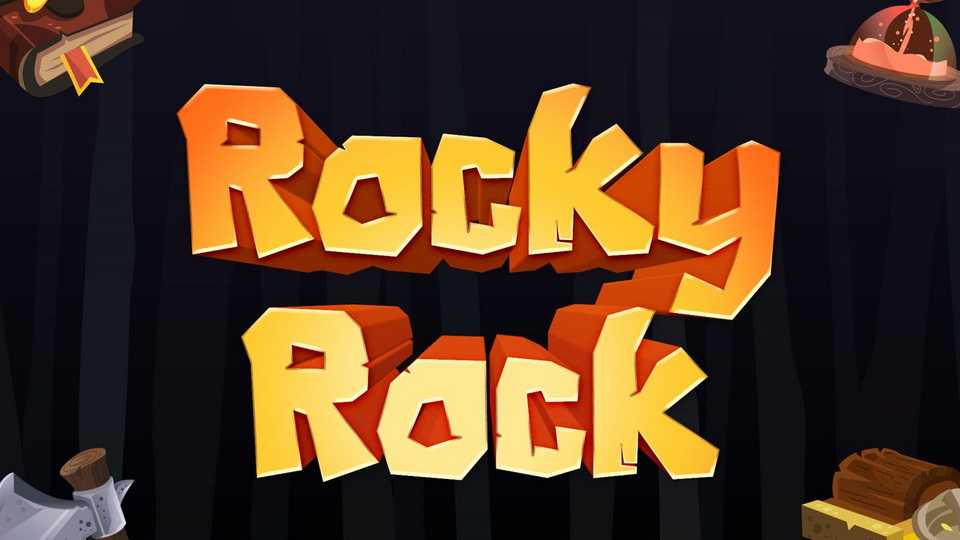
Download Rocky Rock font, a gaming typeface. Feel like we dwell in the era of the dinosaurs. The jagged and rocky look of the font will wow your audience.